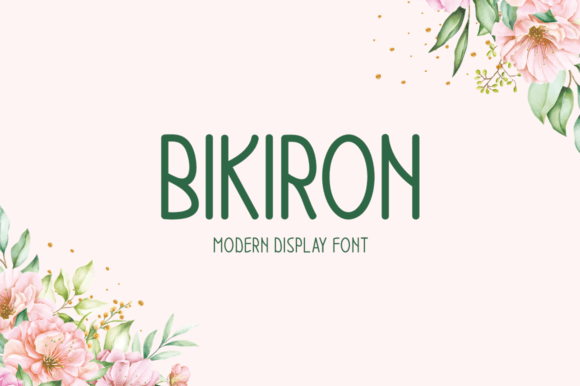
The Perfect Design Companion: Bikiron Font
Have you ever stared at a blank canvas, waiting for inspiration to strike? Maybe you’ve been scrolling through design boards, searching for that one perfect font to elevate your project. For designers, finding the right font can be a game-changer. It’s the difference between a good design and a great one.
Enter Bikiron Font, a brand-new modern display font designed to make your creative vision a reality. Whether you’re working on stationery, logos, or website headers, Bikiron Font is the perfect companion to bring your designs to life. Its versatility makes it suitable for a wide range of applications, from print designs to digital media.
As a designer, you’ll appreciate the value that Bikiron Font brings to your projects. Its modern aesthetic and sleek design make it an excellent choice for any creative endeavor. With Bikiron Font, you’ll be able to add a professional touch to your work, setting you apart from the rest.
Bikiron Font Key Features
- Unique Characteristics: Bikiron Font features a unique blend of modern and vintage elements, making it an ideal choice for designers seeking a distinctive look.
- Font Weight: Bikiron Font offers multiple font weights, including light, regular, bold, and italic, allowing for flexibility in design applications.
Bikiron Font Review
Overall, I have mixed feelings about the Bikiron font. On one hand, it has some great features that make it a decent choice for certain projects.
- Unique design: The Bikiron font has a distinctive and modern aesthetic that can be a great fit for innovative and forward-thinking projects.
- Legibility: The font is relatively easy to read, even at smaller sizes, making it suitable for body text and other content areas.
- Lack of bold weights: The font only comes in a few weights, which can limit its versatility and make it less suitable for projects that require a wide range of font weights.
- Not suitable for large blocks of text: Due to its unique design, the Bikiron font can become overwhelming when used for large blocks of text.
- May not be suitable for print: The font’s design may not translate well to print, where the nuances of the digital version may be lost.
In conclusion, the Bikiron font is a decent choice for certain projects, but its limitations make it less suitable for others. While it has a unique design and is easy to read, its lack of bold weights and limited suitability for large blocks of text and print may be a drawback for some designers.
Tips for Getting the Most Out of Bikiron Font
To get the most out of Bikiron Font, consider the following tips:
- Use it for titles and headings to add a touch of elegance.
- Combine it with other fonts to create a unique and eye-catching design.
- Experiment with different font sizes and styles to achieve the desired effect.
Bikiron Font is commonly used in:
- Wedding and event planning materials.
Alternatives to Bikiron Font
Montserrat is a modern sans-serif font designed for digital use. It is highly legible and versatile, making it suitable for a wide range of applications, including logos, headings, and body text. Montserrat is a great alternative to Bikiron Font for designers who want a clean and modern look.
Comparison: Montserrat is more geometric and has a stronger x-height than Bikiron Font, giving it a more contemporary feel. It is also more condensed, making it ideal for use in smaller spaces.
Inter is a highly legible sans-serif font designed for digital use. It is optimized for on-screen reading and is suitable for a wide range of applications, including body text, headings, and titles. Inter is a great alternative to Bikiron Font for designers who want a clean and modern look with excellent readability.